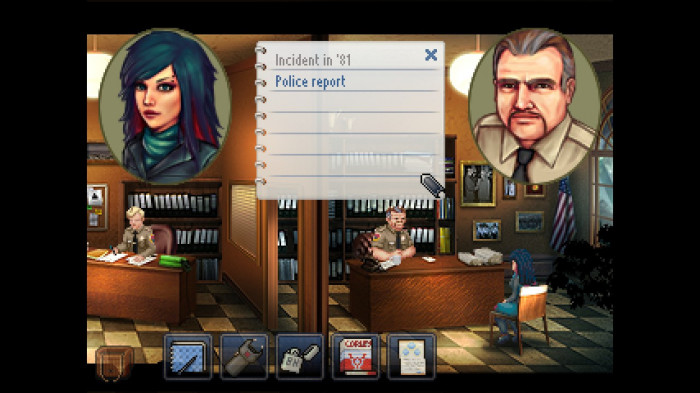
• Recreation of the narrow font used for notepad entries in the Kathy Rain and Kathy Rain: Director’s Cut. Almost all of the glyphs are either taken directly from the game with the exception of K, N, O, Q, V, X, Y, Z (couldn’t find them in the game), and some punctuation (which is derived from the main font). I tried to leave the original spacing, too.
The first 13 glyphs of the Private Use Area block are small numbers, small slash and birth/death symbols used for some grave markings in the game.